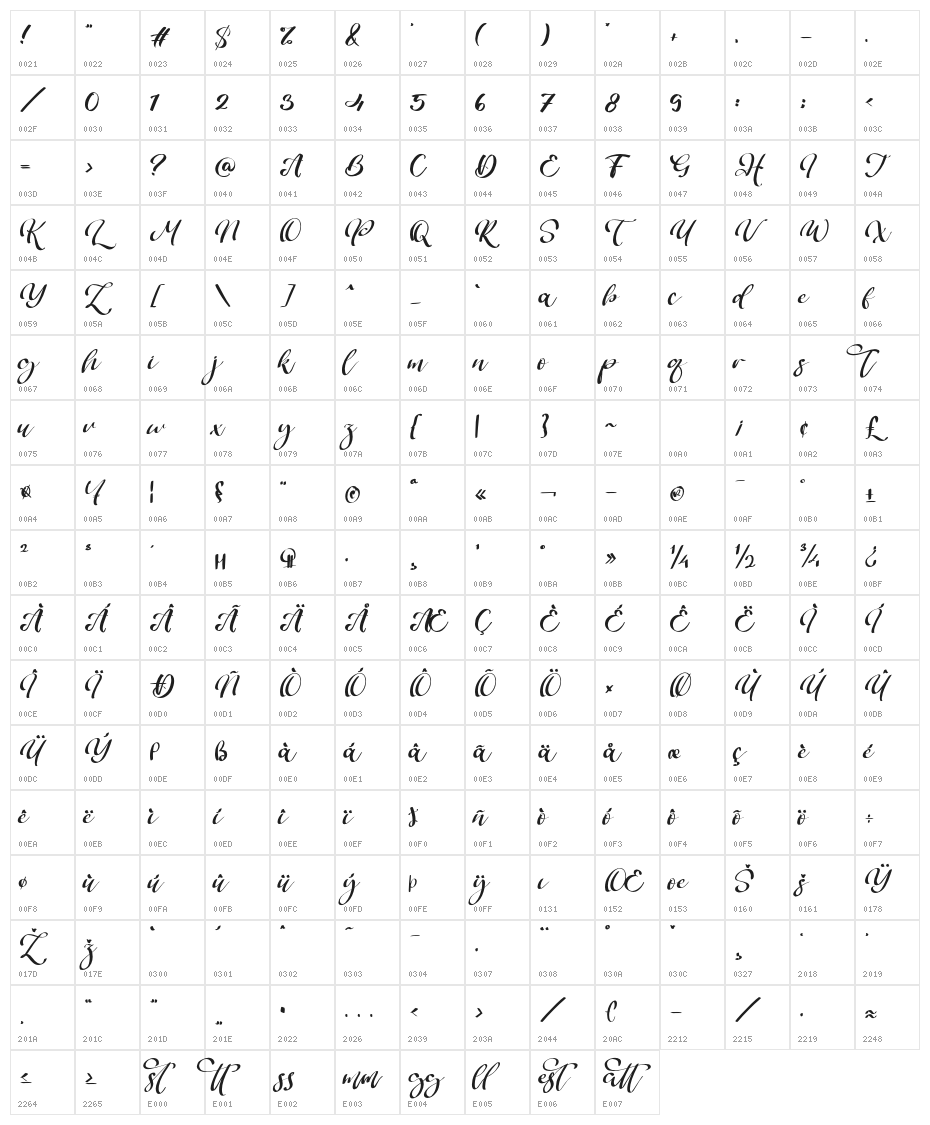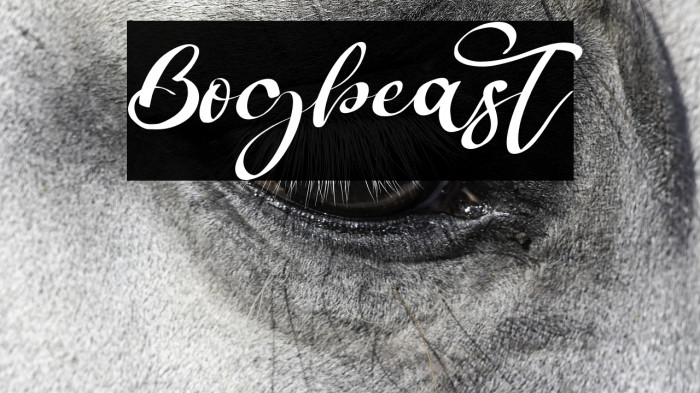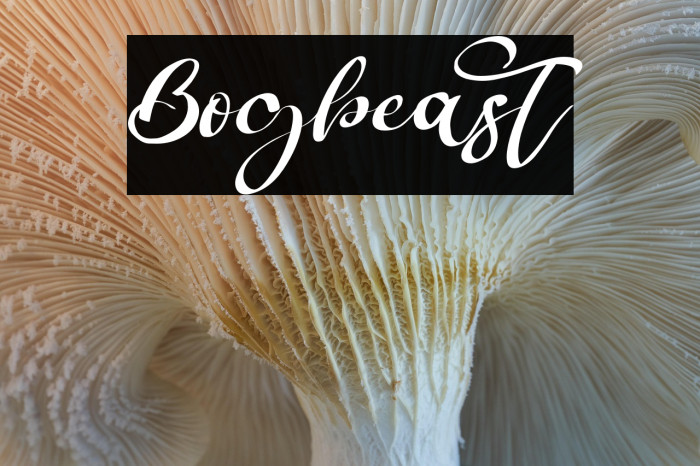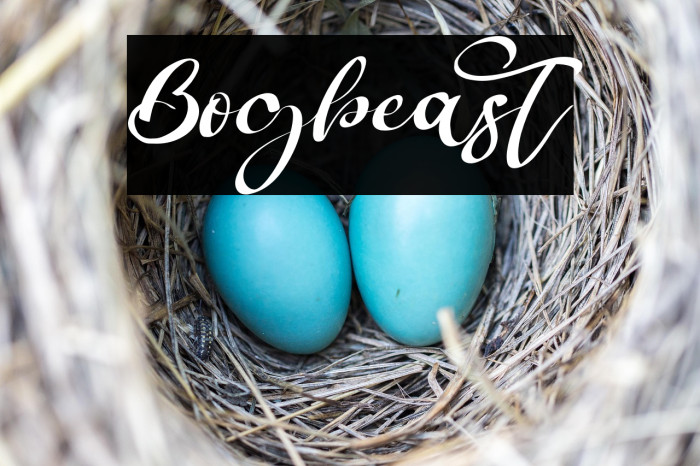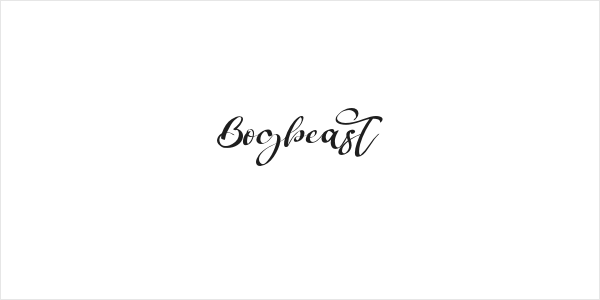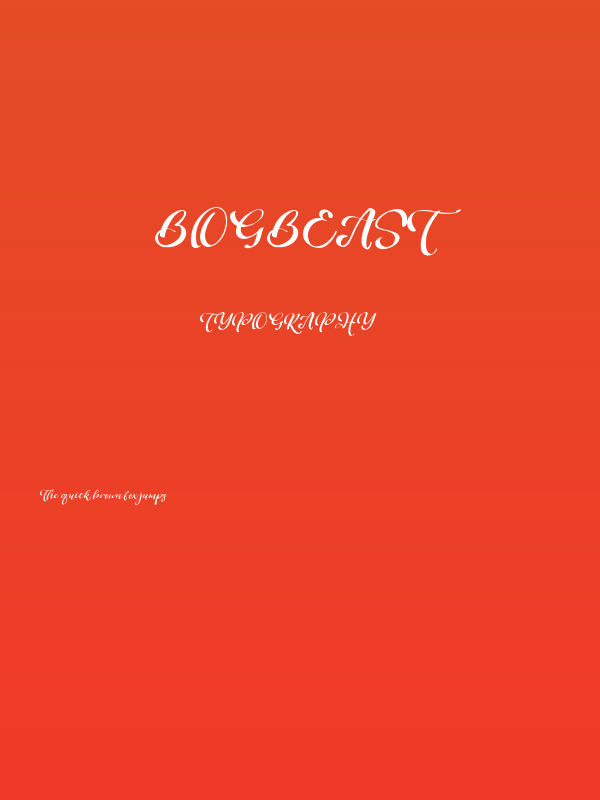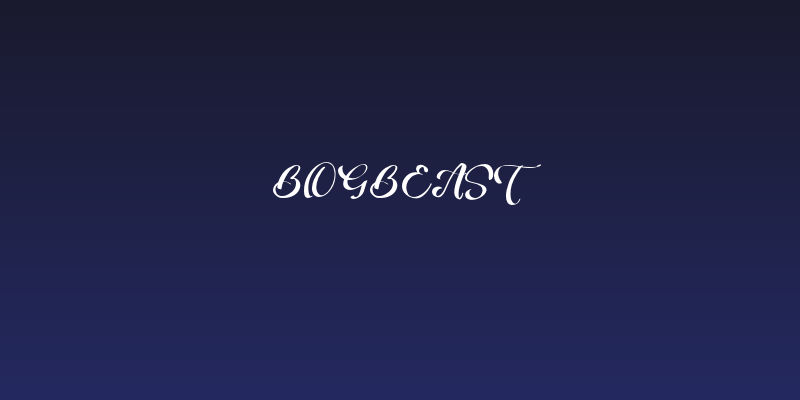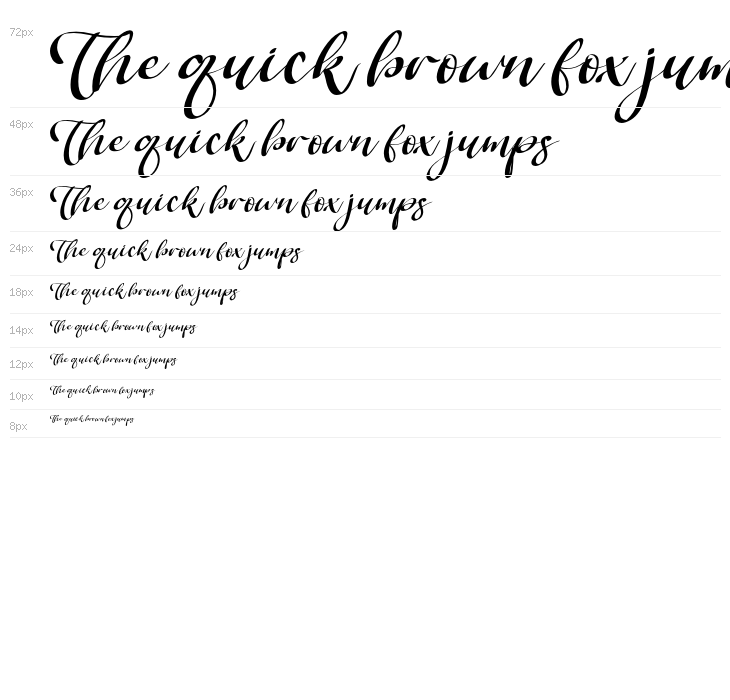
Bogbeast Font
Bogbeast Description
This font exudes a dynamic and elegant script style, characterized by its fluid, cursive strokes and a sense of movement. The letters are interconnected, creating a seamless flow that is both artistic and sophisticated. The uppercase letters are bold and prominent, while the lowercase letters maintain a graceful and delicate appearance. The numerals and special characters are designed to complement the overall aesthetic, ensuring consistency across all elements. This font is perfect for projects that require a touch of elegance and creativity, such as invitations, branding, and decorative designs.
| Overall Style | Elegant, Artistic |
| Proposed Projects | Ideal for wedding invitations, branding, logos, and decorative projects. |